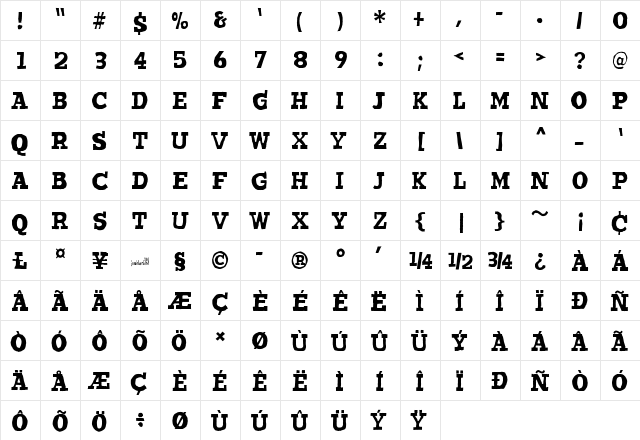
Wantedo Regular
Design Context for Wantedo Typeface
Wantedo offers clean, dependable letterforms without strong stylistic allegiance, making it a practical choice for designers who need flexibility.
Pro Tip: Pair Wantedo with a font of contrasting weight or personality to build a more expressive typographic hierarchy.